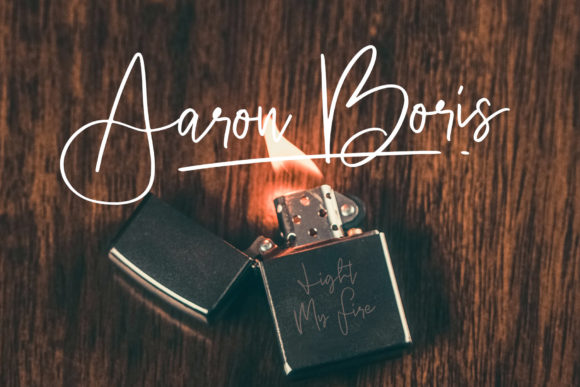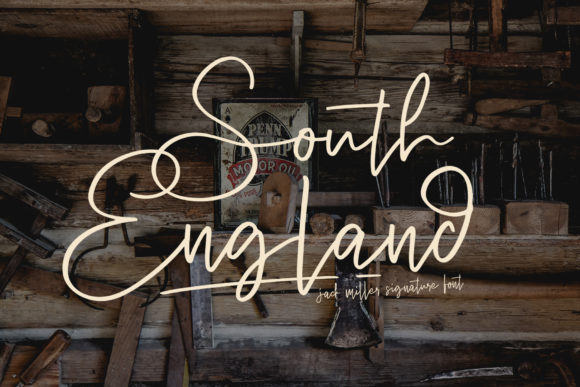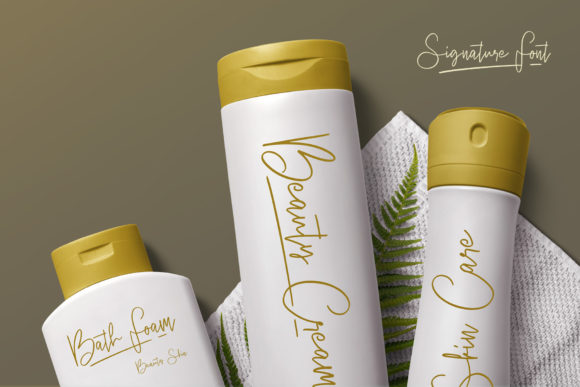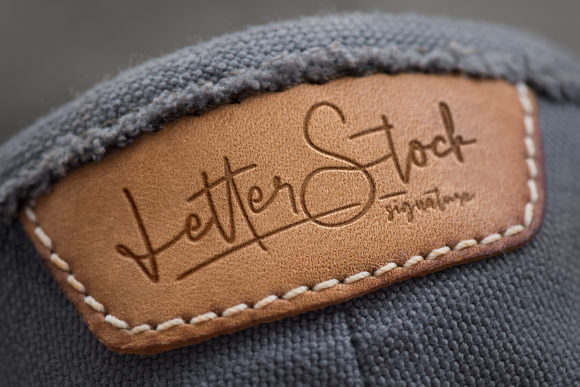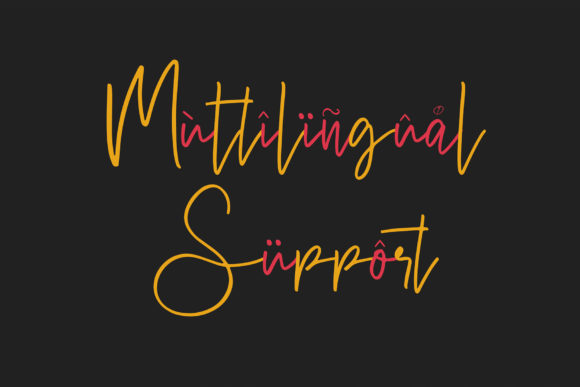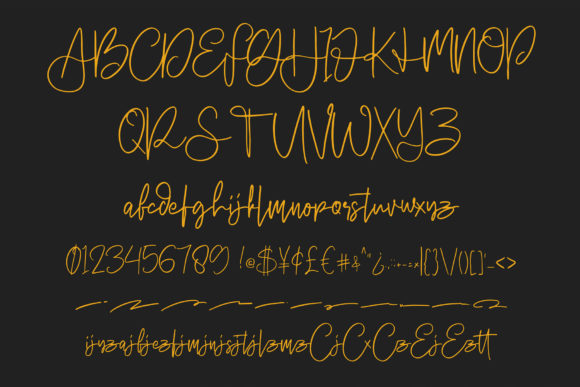
Introduction to Jack Miller Font
Jack Miller is a stylish and delicate handwritten font.
It has a clean, thin and smooth vibe and it will be a hit for any design that you want to add it to It is suitable for creating any branding, product packaging, invitation, quote, t-shirt, label, poster, logo that you wish to develop.
Key Features of Jack Miller Font